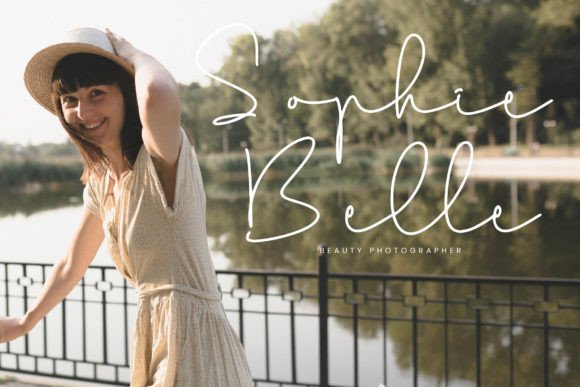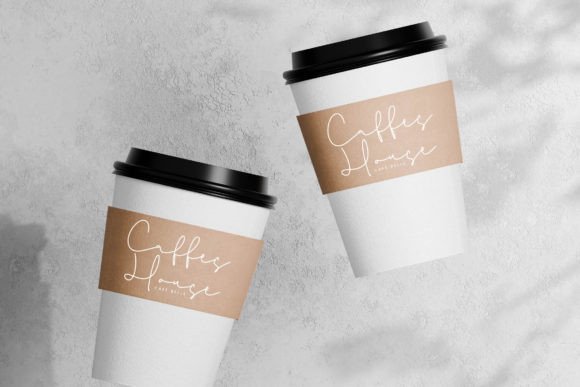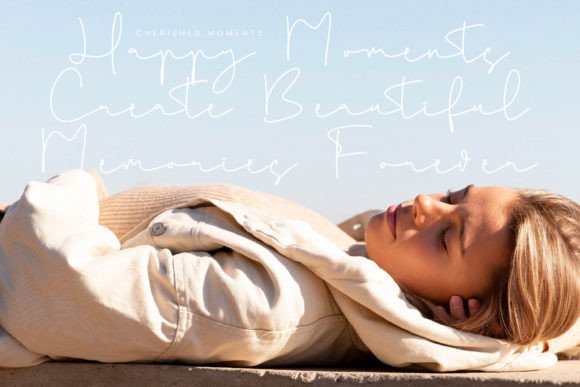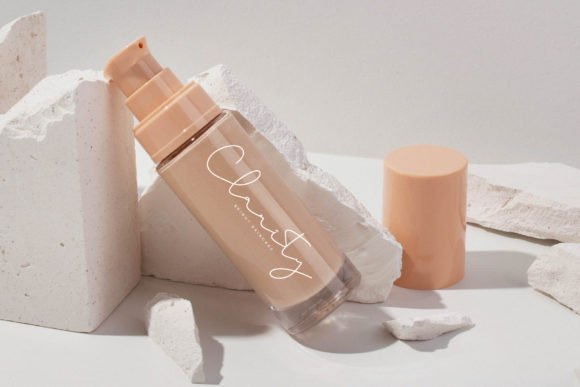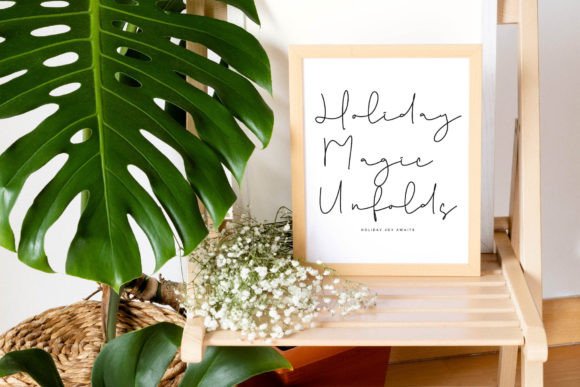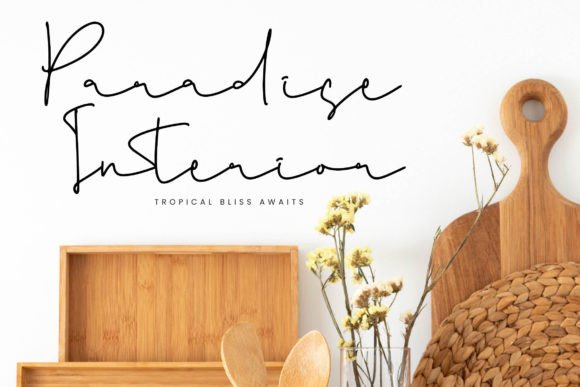
Garden Royale Font: Elevate Your Designs with Elegant Calligraphy
Are you a designer or crafter looking for a font that exudes luxury and sophistication? Look no further than Garden Royale, an elegant calligraphy font perfect for a wide range of projects. From logos and branding to homewares designs, product packaging, and more, Garden Royale is the ideal choice for those seeking a premium taste.
What is Garden Royale Font?
Garden Royale is a beautifully crafted calligraphy font that boasts a regal and refined aesthetic. Its elegant strokes and flourishes evoke a sense of luxury and high-end quality, making it perfect for designers and crafters who want to add a touch of sophistication to their work.
Uses for Garden Royale Font
Garden Royale is an incredibly versatile font that can be used for a wide range of projects, including:
- Logos and branding projects: Create a lasting impression with a custom logo that showcases your brand’s elegance and sophistication.
- Homewares designs: Add a touch of luxury to your homewares designs, from ceramics to textiles, with Garden Royale’s refined aesthetic.
- Product packaging: Elevate your product packaging with a font that exudes high-end quality and sophistication.
- Mugs, quotes, posters, and shopping bags: Add a touch of elegance to your everyday designs with Garden Royale’s beautiful calligraphy.
- T-shirts, covers books, business cards, and more: Use Garden Royale to create stunning designs for a wide range of applications.
Why Choose Garden Royale Font?
So why choose Garden Royale over other fonts? Here are just a few reasons:
- Unique and elegant aesthetic: Garden Royale boasts a one-of-a-kind design that will set your work apart from the rest.
- High-quality design: Crafted with precision and attention to detail, Garden Royale is a high-quality font that will elevate your designs.
- Versatility: Use Garden Royale for a wide range of projects, from logos and branding to homewares designs and more.
- Premium feel: Add a touch of luxury to your designs with Garden Royale’s premium aesthetic.
Tips for Using Garden Royale Font
To get the most out of Garden Royale, here are a few tips:
- Pair with complementary fonts: Combine Garden Royale with complementary fonts to create a unique and visually appealing design.
- Experiment with colors and textures: Add depth and interest to your designs by experimenting with different colors and textures.
- Use for headlines and titles: Garden Royale is perfect for headlines and titles, where its elegant aesthetic can really shine.
In conclusion, Garden Royale is an elegant calligraphy font that is perfect for designers and crafters looking to add a touch of luxury to their work. With its unique and refined aesthetic, high-quality design, and versatility, Garden Royale is the ideal choice for a wide range of projects. Whether you’re working on logos and branding, homewares designs, product packaging, or more, Garden Royale is sure to elevate your designs and leave a lasting impression.